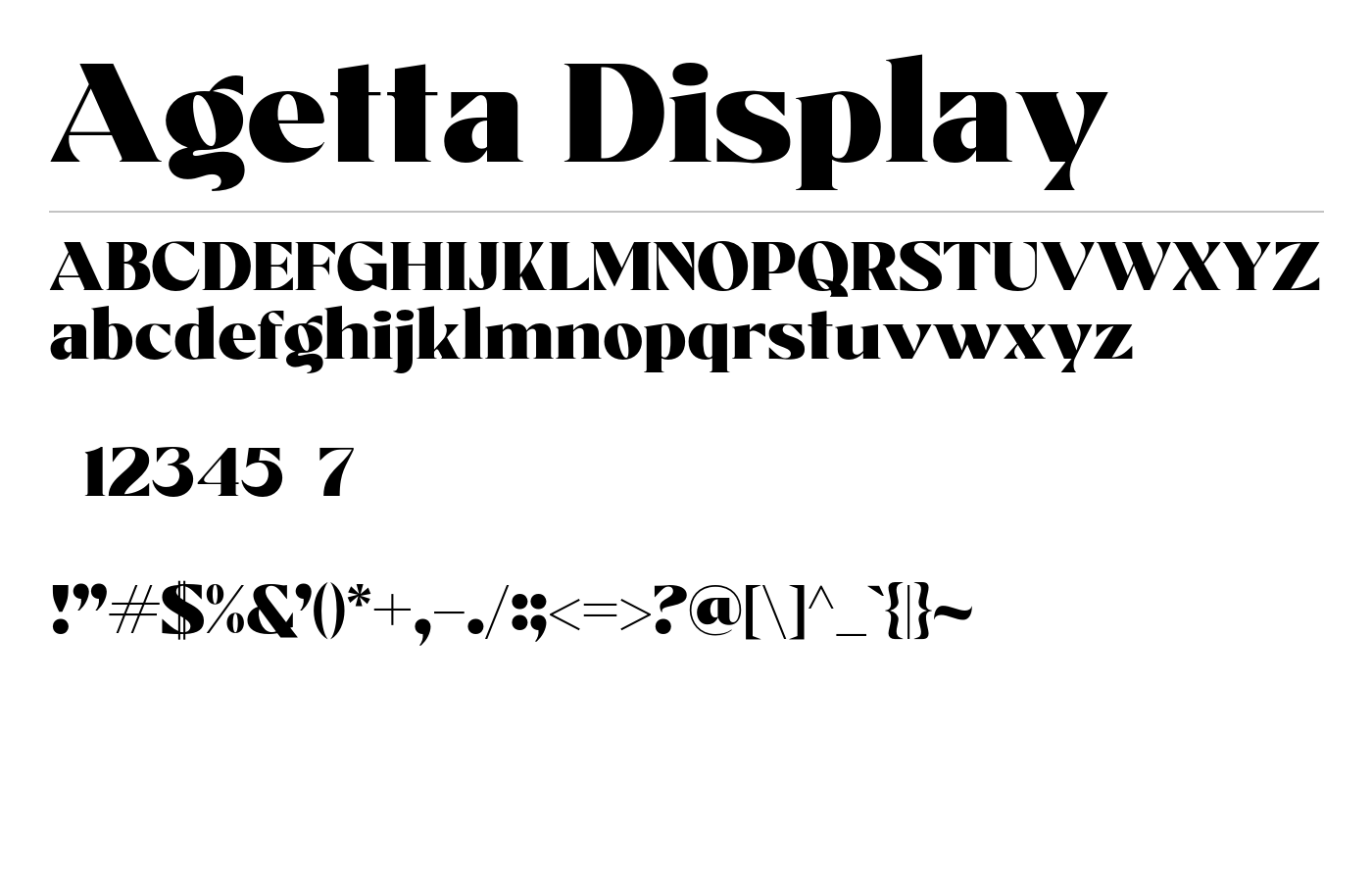
Agetta Display is a bold serif typeface that combines high contrast strokes with sharp, elegant serifs, lending it a sophisticated and classic appeal. Its strong presence and refined details make it ideal for luxury branding, editorial headlines, and striking logo designs where a timeless, confident look is desired. This font stands out as a stylish choice for projects needing a blend of tradition and modern flair.
Agetta Display Font
About Agetta Display Font